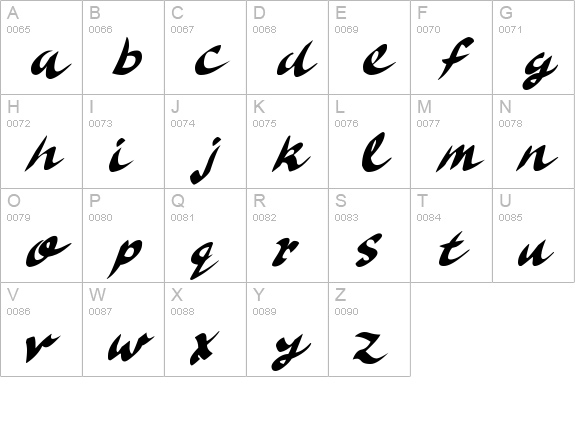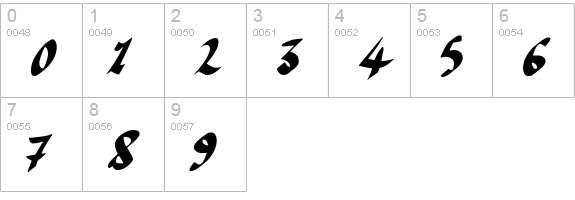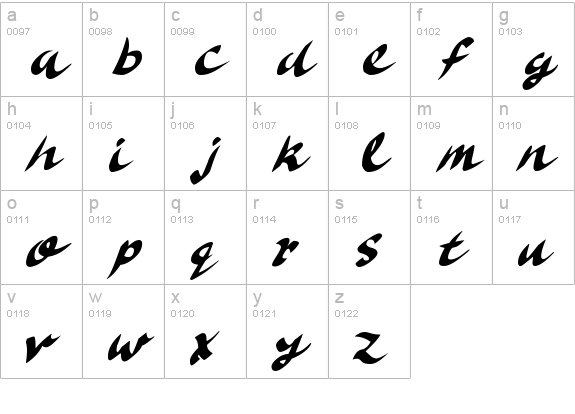
Delicious Doom Font Details
Delicious Doom is a free for personal use font in the Script > Handwritten category, designed by Darrell Flood. It has been downloaded 103 times and is available for Windows, Mac and Linux.
Delicious Doom font is a beautifully crafted typeface that exudes a sense of mystery and elegance. Its intricate design features sharp edges and elaborate details, making it perfect for adding a touch of sophistication to your projects. The unique combination of bold strokes and delicate curves gives this font a striking appearance that is sure to capture attention.